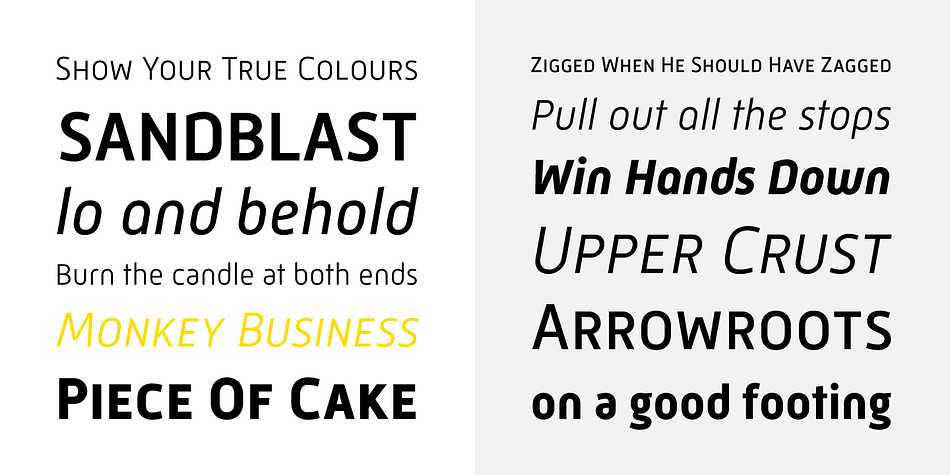
Mic 32 New
Mic 32 New is a sans serif font family. This typeface has eight styles and was published by Moretype.
Mic32 New is a revival of the of the original Mic32 released in 2004.
Keeping its futuristic appeal, this popular font has been re-drawn from the ground up, with new spacing and kerning.
A range of Opentype features have been added, and the new version includes small caps, tabular, proportional and old style numerals and ligatures.
Mic 32 New New has been hand hinted for web use.
Displaying the beauty and characteristics of the Mic 32 New font family.
Mic32 New is a revival of the of the original Mic32 released in 2004. Keeping its futuristic appeal, this popular font has been re-drawn from the ground up, with new spacing and kerning. A range of Opentype features have been added, and the new version includes small caps, tabular, proportional and old style numerals and ligatures. Mic 32 New New has been hand hinted for web use.